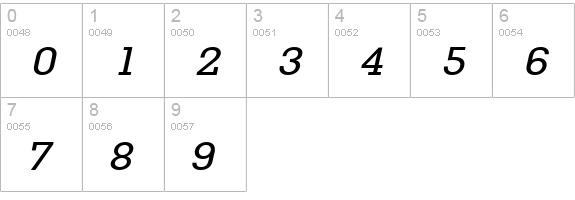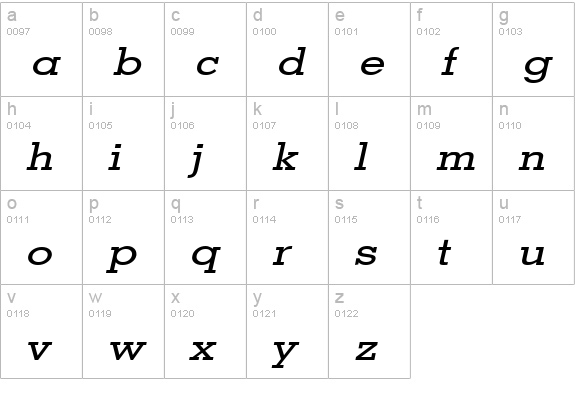
Geo Wide Italic is a distinctive, extended-width, italic variant in the Geo typeface family \xE2\x80\x94 well suited to design and typography projects.
Introducing Geo Wide Italic - a sleek and modern typeface that will add a touch of sophistication to your design projects. With its clean lines and elegant curves, Geo Wide Italic is perfect for logos, headlines, and branding materials. This versatile font exudes a sense of contemporary style and professionalism, making it ideal for a wide range of applications. What's even better is that Geo Wide Italic is available for free download at FontsMarket.com. Simply visit the website to access this stylish font and elevate your designs to the next level. Don't miss out on the opportunity to enhance your creative projects with the timeless beauty of Geo Wide Italic. Download it now and start creating stunning visuals that will leave a lasting impression.